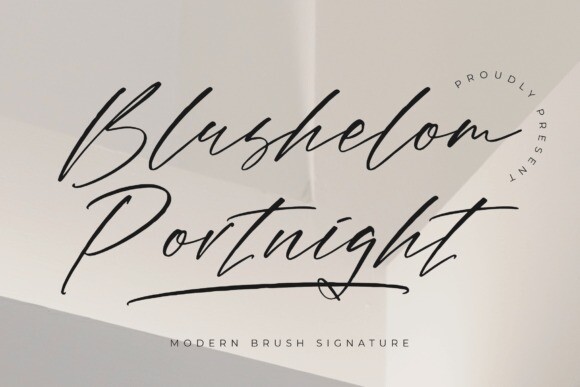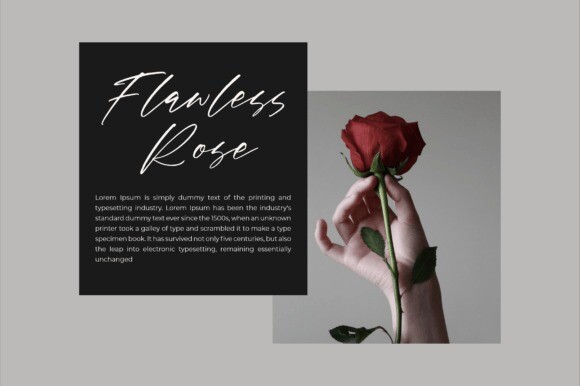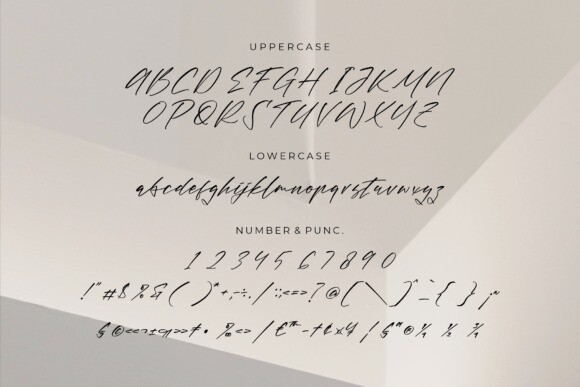
Blushelom Portnight Font
Blushelom Portnight Font is a modern and elegant script font from Letterfabric Studio, suitable for a variety of projects such as logos, branding, homeware designs, product packaging, mugs, quotes, posters, shopping bags, t-shirts, book covers, name card, invitation cards, greeting cards, label, photography, watermark, special events, and all your other lovely projects that need a beautiful script taste.